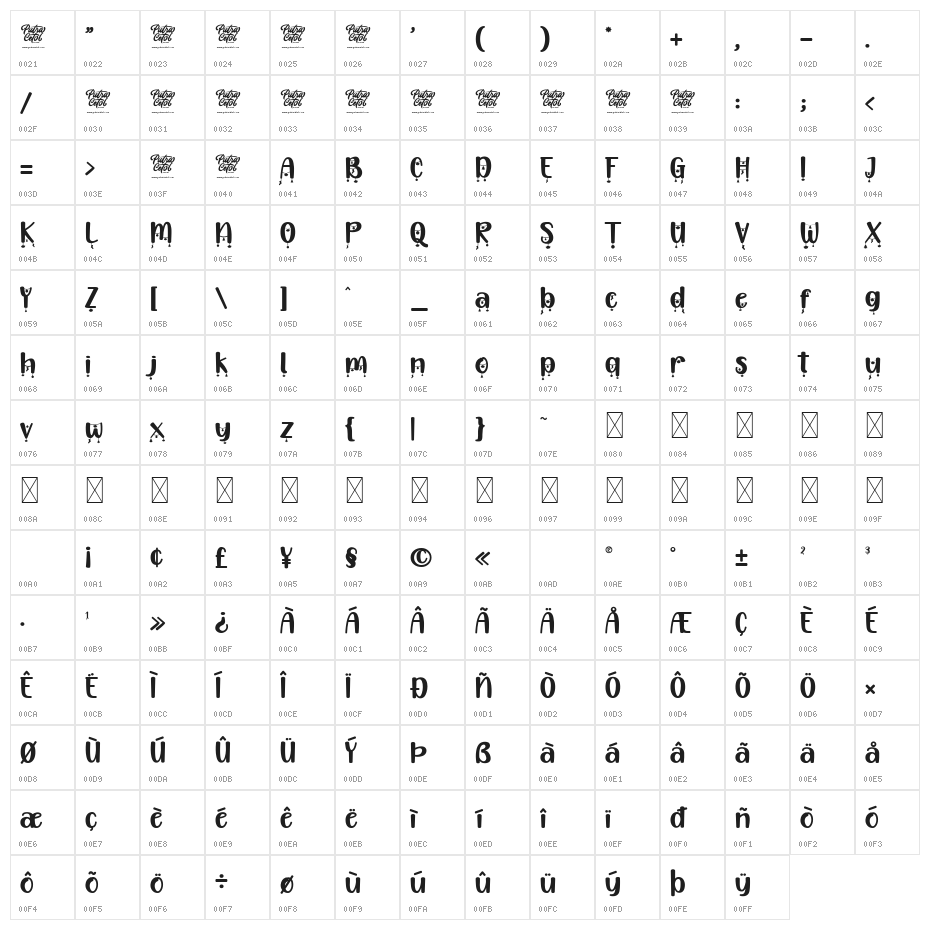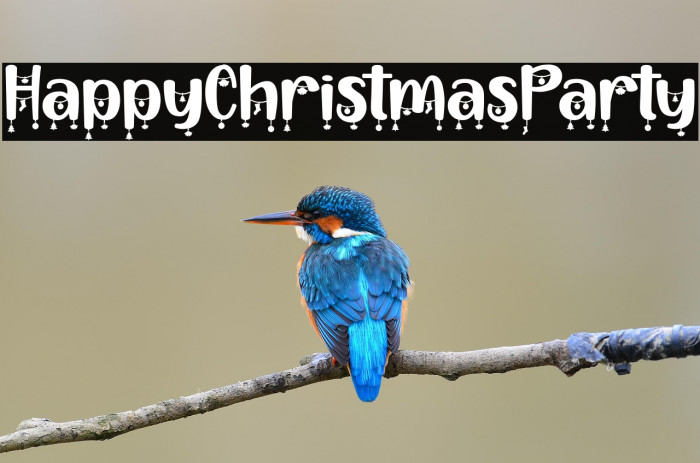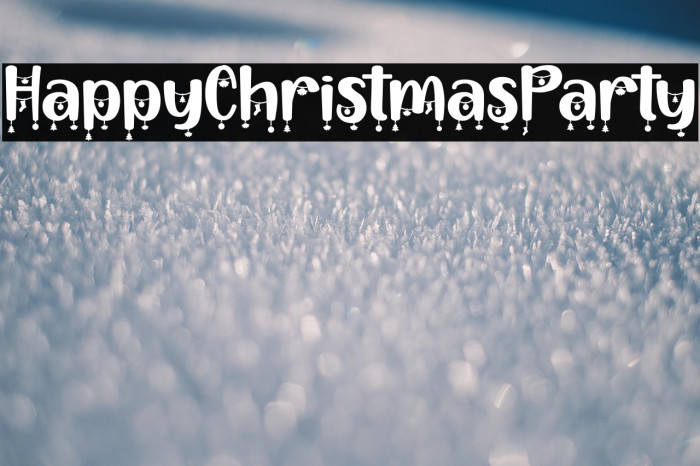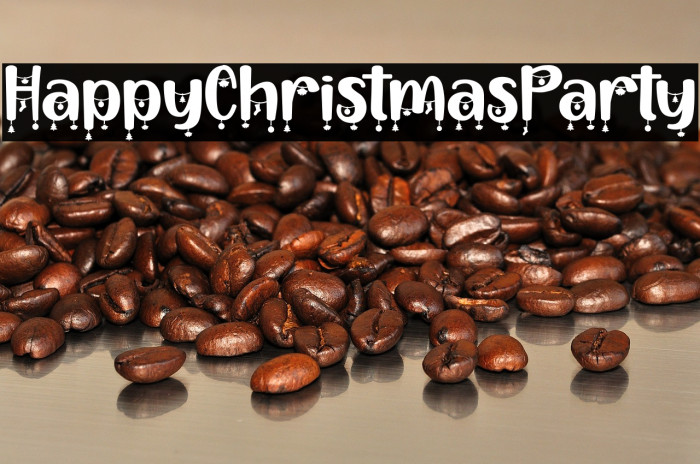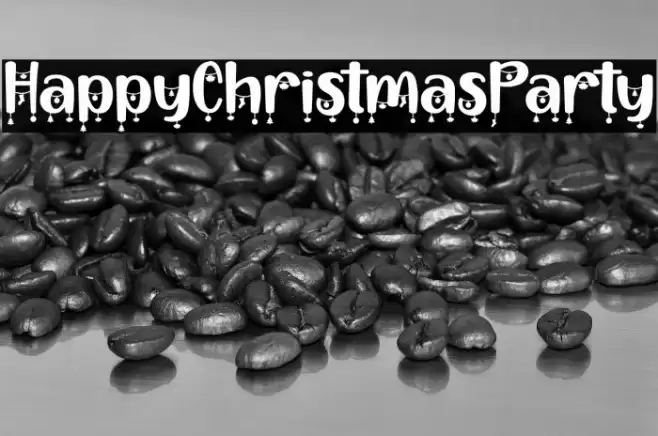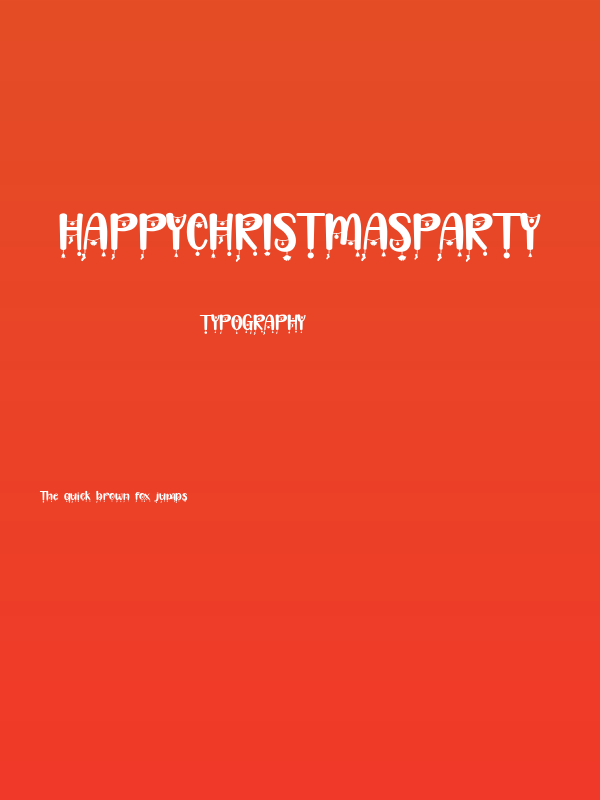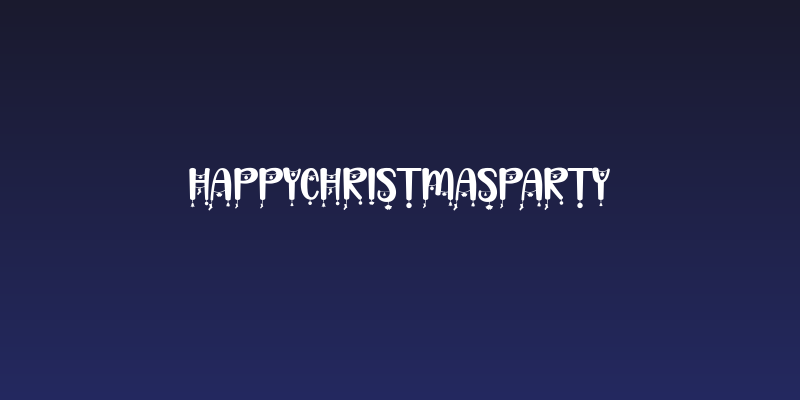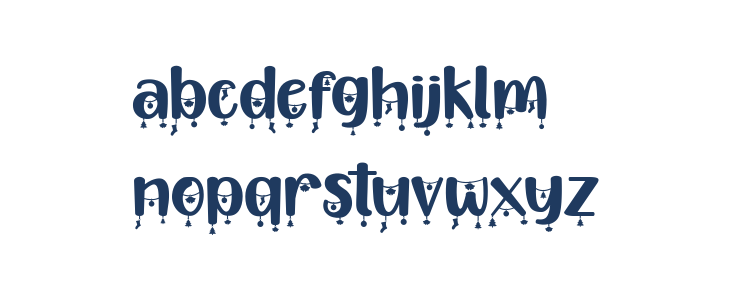
HappyChristmasParty Font
HappyChristmasParty Description
This festive font exudes a playful and whimsical charm, perfect for holiday-themed designs. Each character is adorned with decorative elements reminiscent of Christmas ornaments, adding a unique flair to the overall appearance. The letters are bold and rounded, with a consistent stroke width that enhances readability while maintaining a joyful aesthetic. The font's distinctive style is ideal for capturing the spirit of celebration and joy, making it a great choice for seasonal projects. Its decorative nature is balanced with a clear structure, ensuring that it remains legible even with its intricate details.
Proposed ProjectsIdeal for holiday cards, festive banners, Christmas party invitations, and seasonal marketing materials.